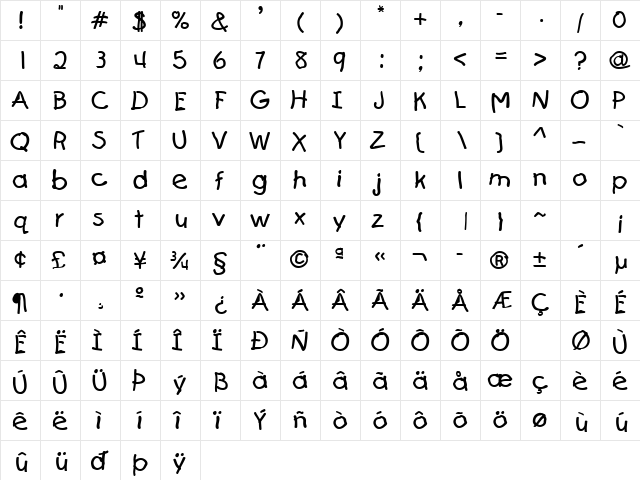
KAJAKA Regular
Design Context for KAJAKA Typeface
KAJAKA is a composed and adaptable typeface that performs quietly and consistently across a wide range of design contexts.